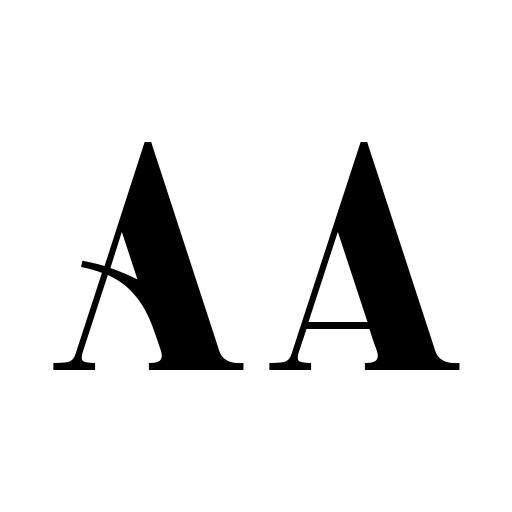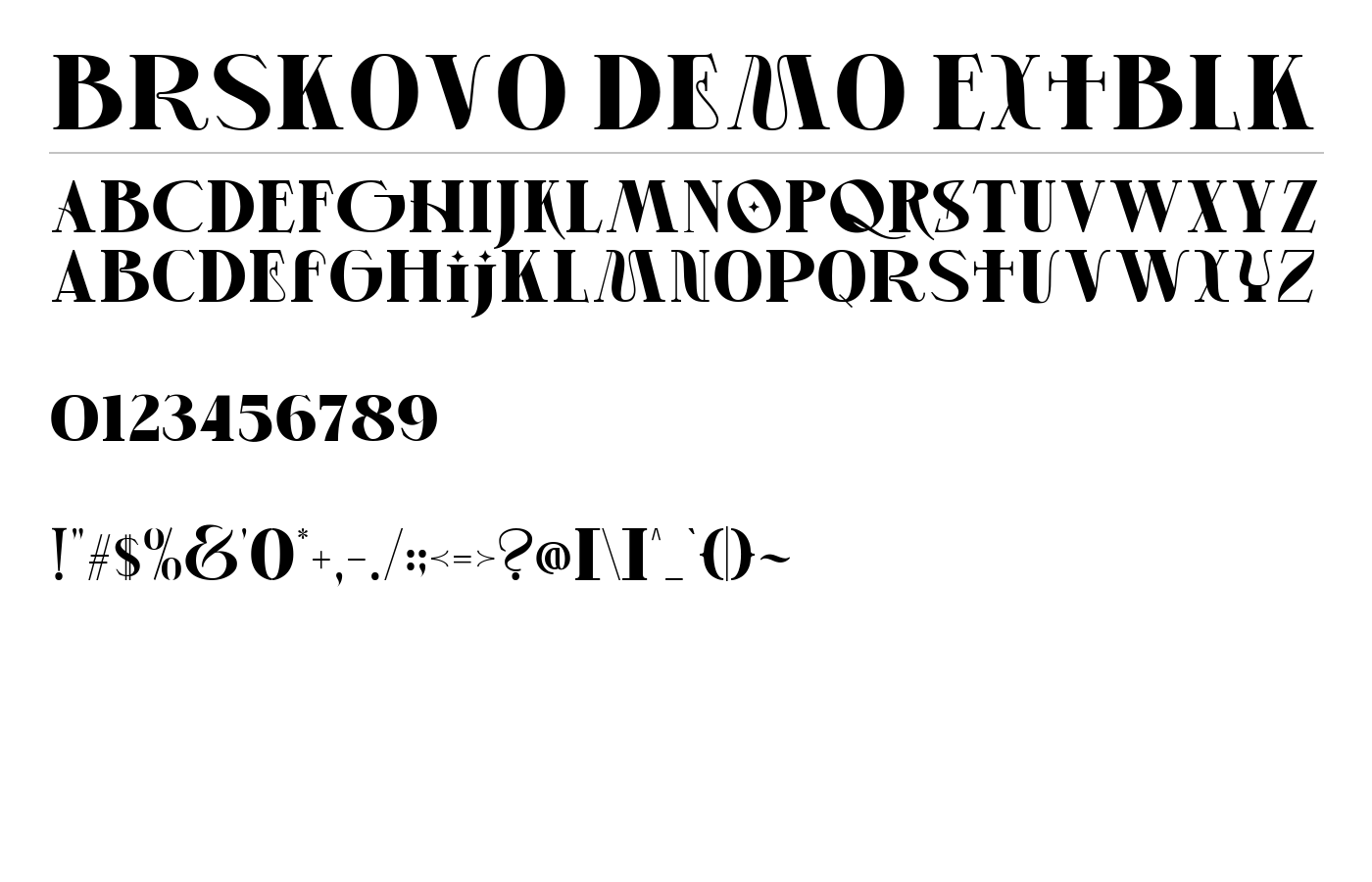
Brskovo Demo is a bold, artistic serif font with high contrast between thick and thin strokes, featuring sharp, elegant serifs and unique decorative elements that give it a sophisticated, avant-garde feel. Its tall, condensed letterforms and distinctive glyph details make it ideal for striking headlines, luxury branding, and editorial designs looking to convey a blend of tradition and modern creativity. This font works best in contexts where a strong, elegant statement is needed to capture attention and express refined style.
Brskovo Demo Font
About Brskovo Demo Font
| Designer | Suandana Ipandemade |